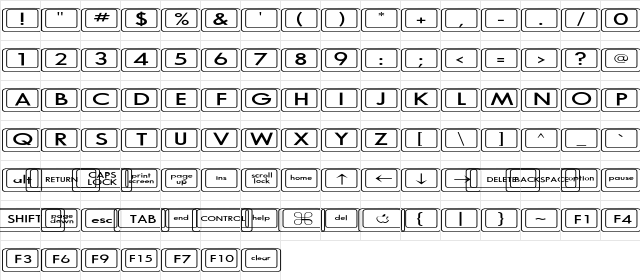
Keyboard KeysEx Expanded Regular
Design Context for Keyboard KeysEx Expanded Typeface
Keyboard KeysEx Expanded is a composed and adaptable typeface that performs quietly and consistently across a wide range of design contexts.